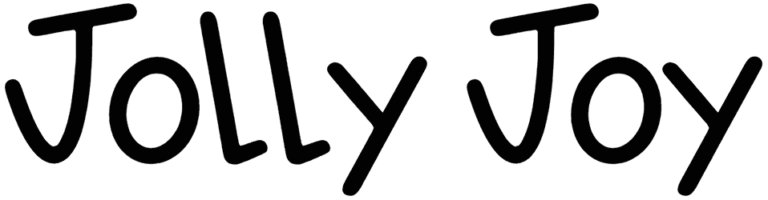
Signature Christmas Font
If you feel a lack of creativity in your artwork, then you have to seriously look for a magical masterpiece such as Signature Christmas. This Christmas font comes with rounded and elongated edges, so it can lead to a sense of viability, delicacy, timelessness, and remarkability.
Pick up this artwork if you want your flyers, social media posts, stickers, applications, or brochures to look more tempting and interesting to the audience. Also, visit the RB collection for more products.